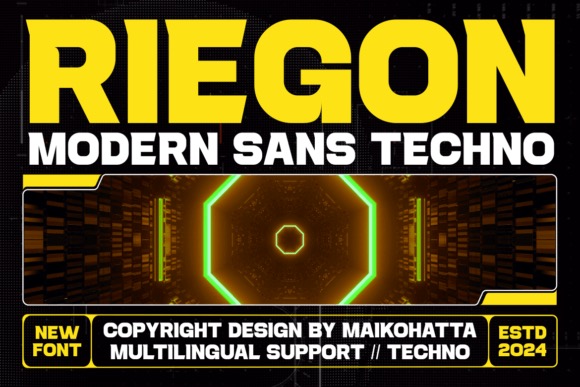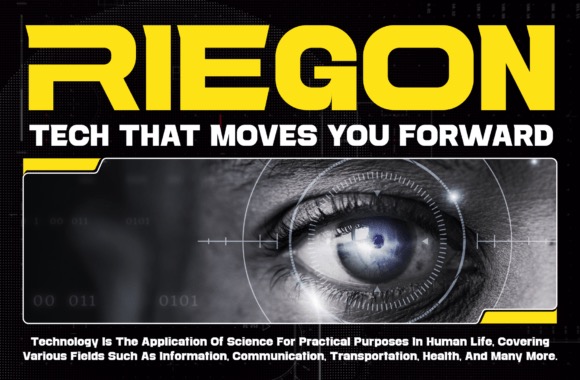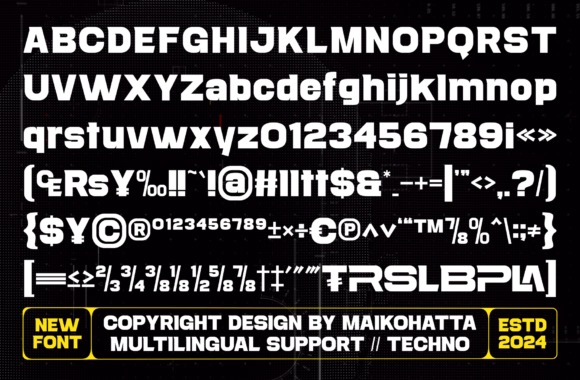
Introducing Riegon, a sans serif techno font that exudes chic and elegance. It’s sleek, clean, and futuristic, perfect for giving a contemporary and high-tech look to any design. The letters are simple and smooth, making them easy to read while adding a stylish, cutting-edge touch.
Riegon Techno Sans Font
Riegon Font